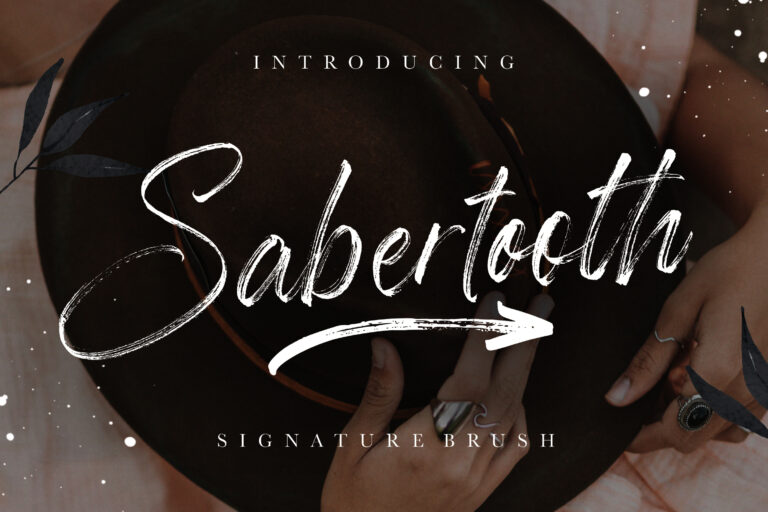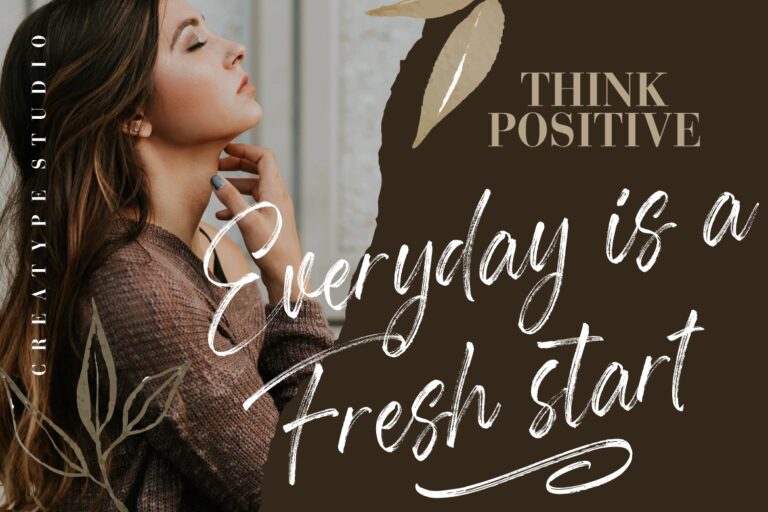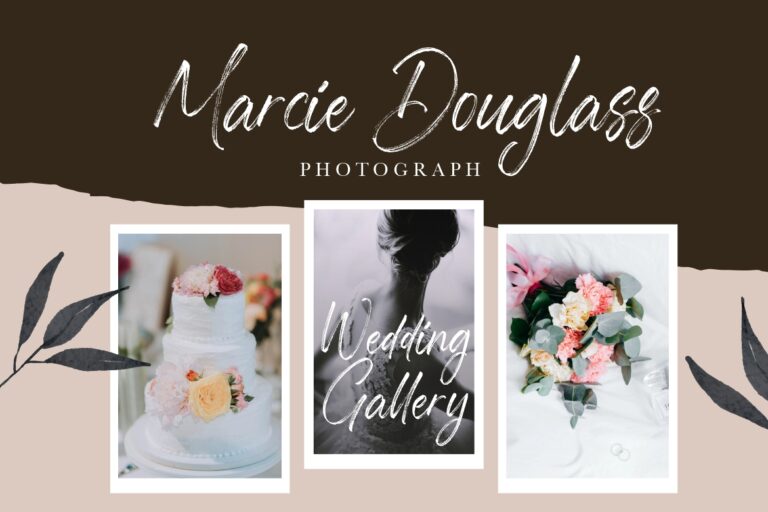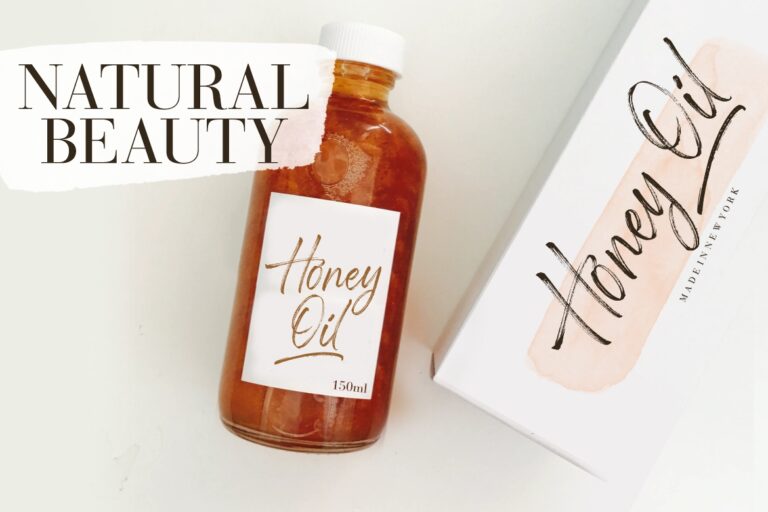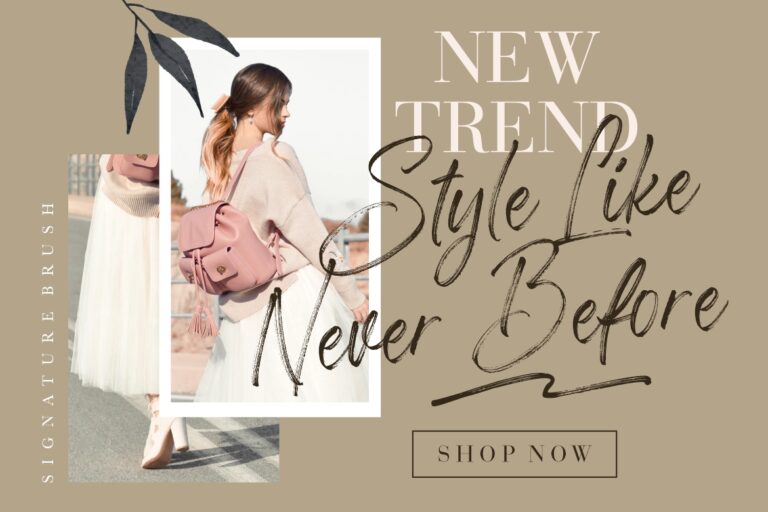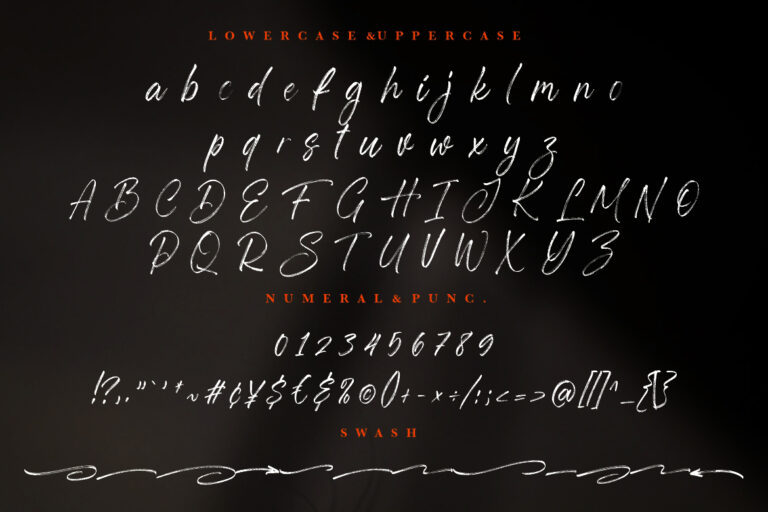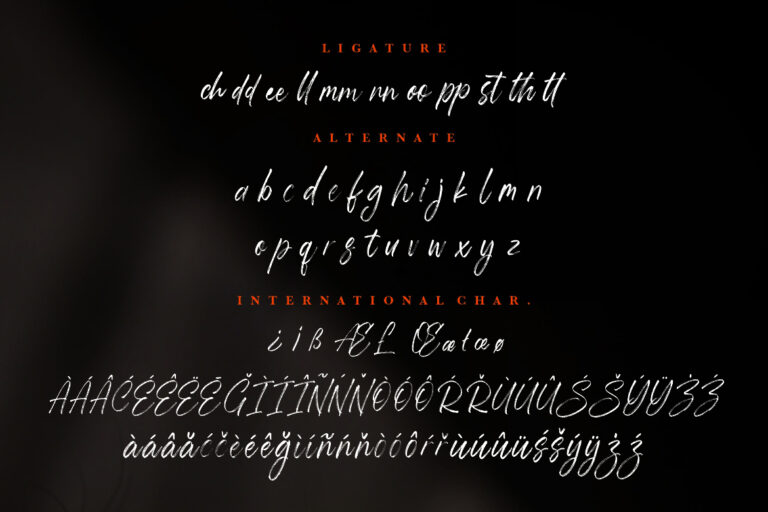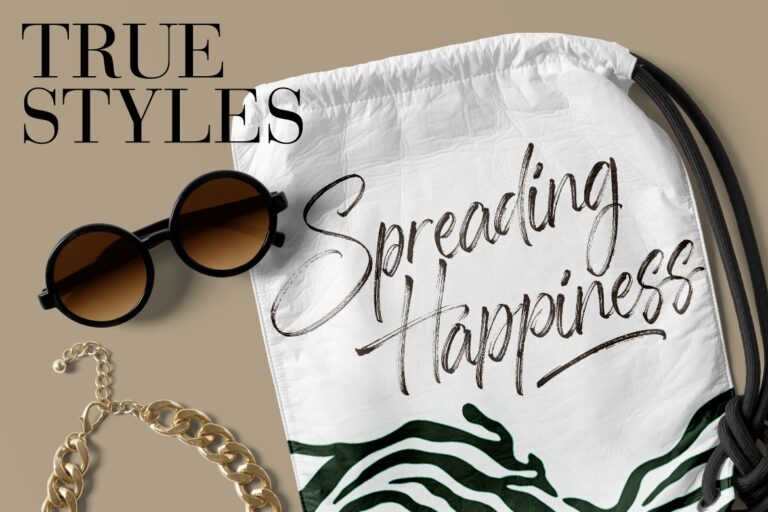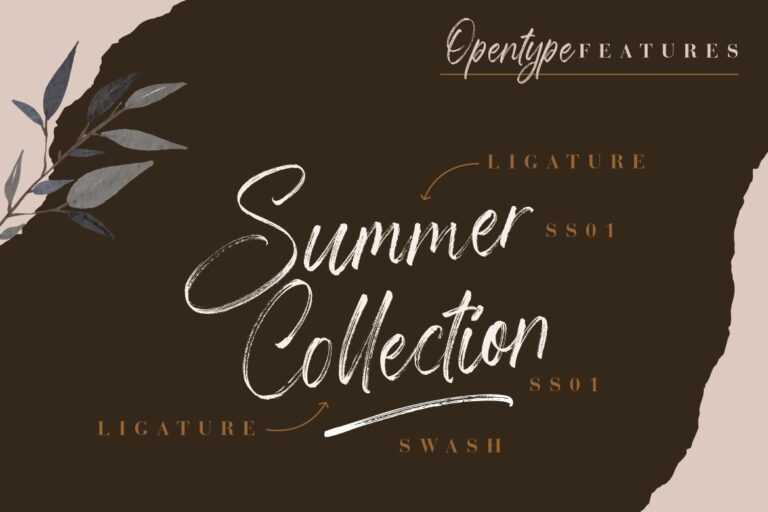
Sabertooth is signature brush font made from natural hand brush that looks so modern but still elegant and modern.
Sabertooth is perfect for branding projects, logo, wedding designs, social media posts, advertisements, product packaging, product designs, label, photography, watermark, invitation, stationery and any projects that need handwriting taste.
• Ton of glyphs
• Ligature, Alternate & Swashes
• Fonts include multilingual support for; Afrikaans, Albanian, Czech, Danish, Dutch, English, Estonian, Finnish, French, German, Hungarian, Italian, Latvian, Lithuanian, Norwegian, Polish, Portugese, Slovak, Slovenian, Spanisch, Swedish.
Sabertooth Signature Brush